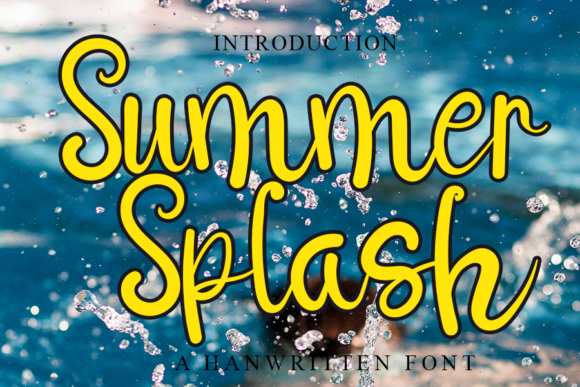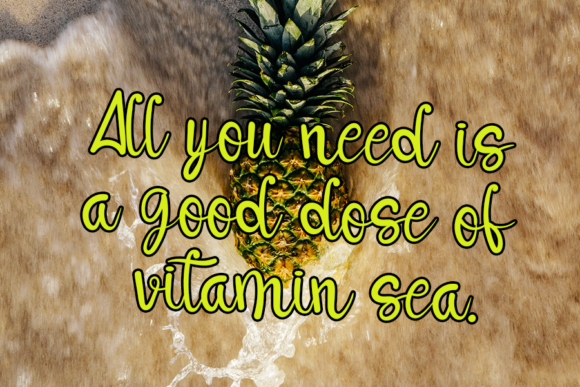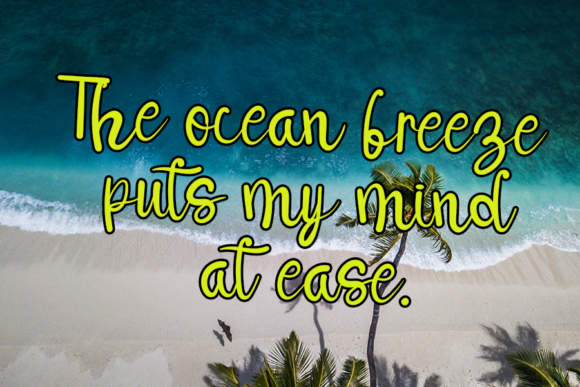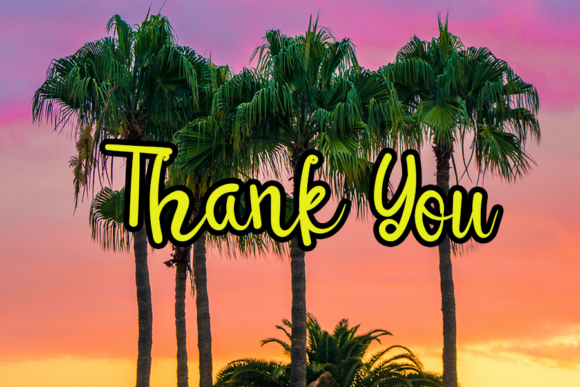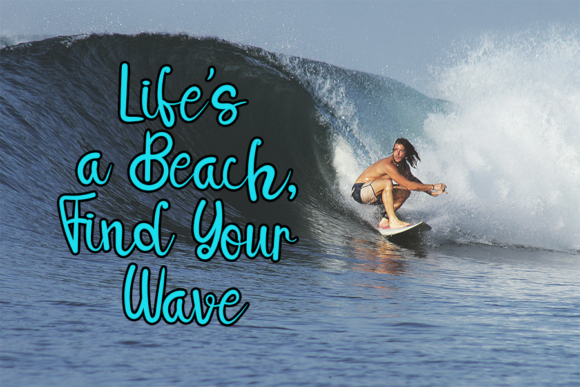
Summer Splash Font
About Summer Splash Font
Summer Splash is a modern, fresh and whimsical handwritten font. Clean and a little bit quirky, this font is the perfect fit for all of your logos, branding, social media, and crafty DIY projects.